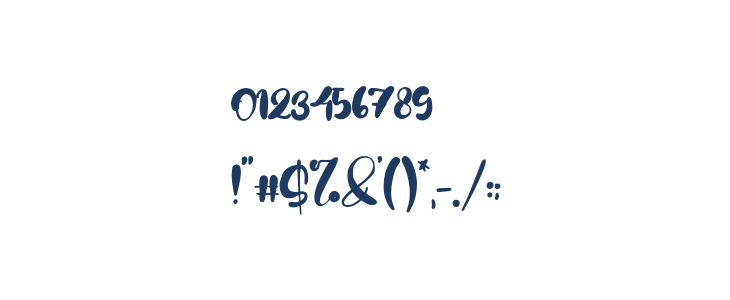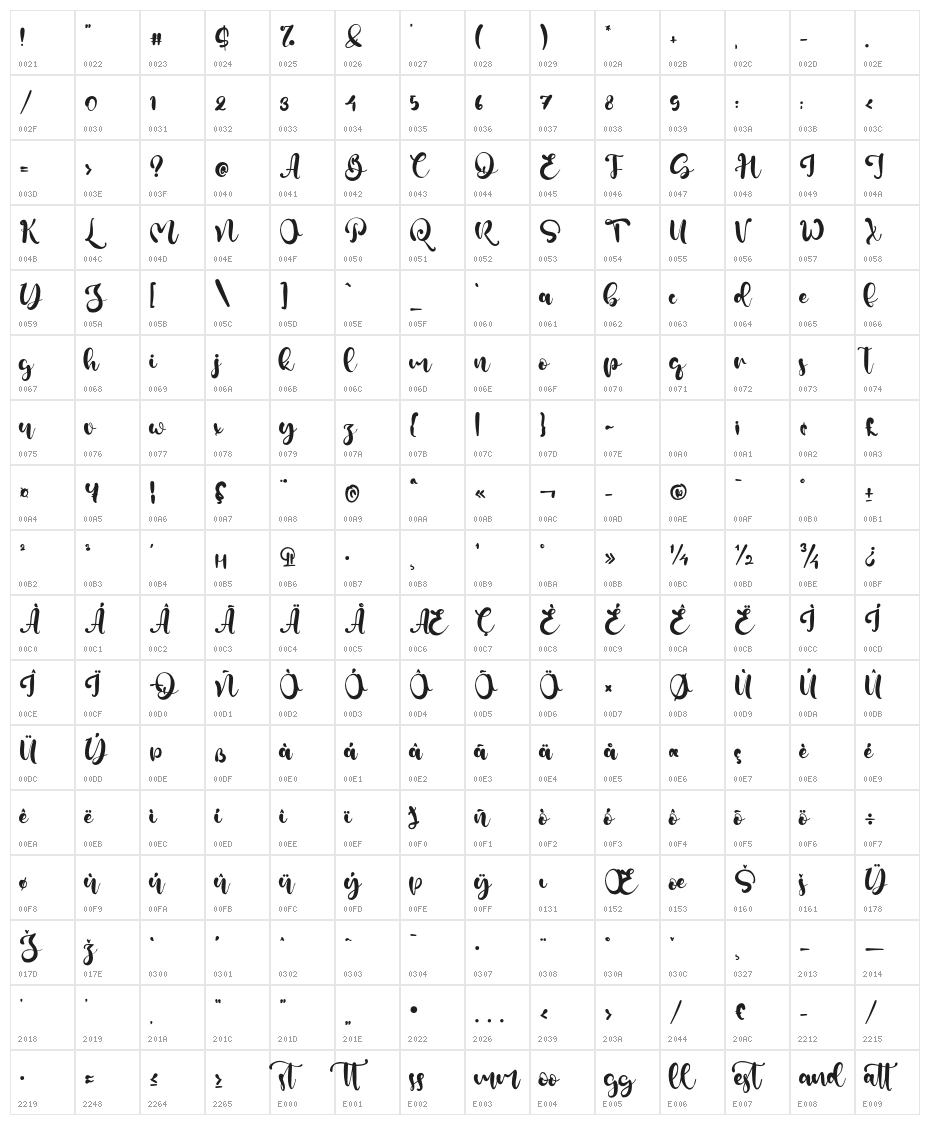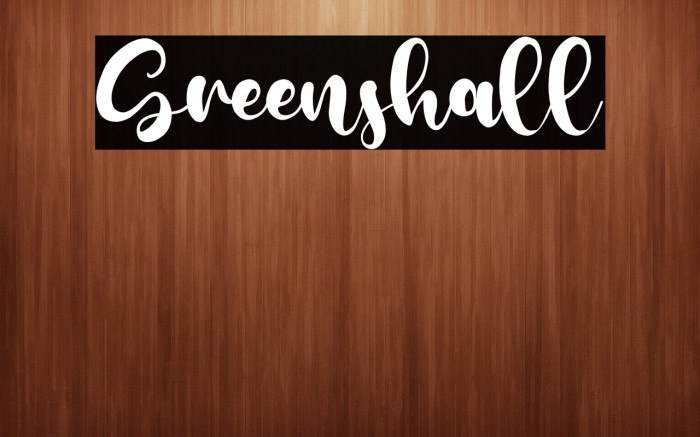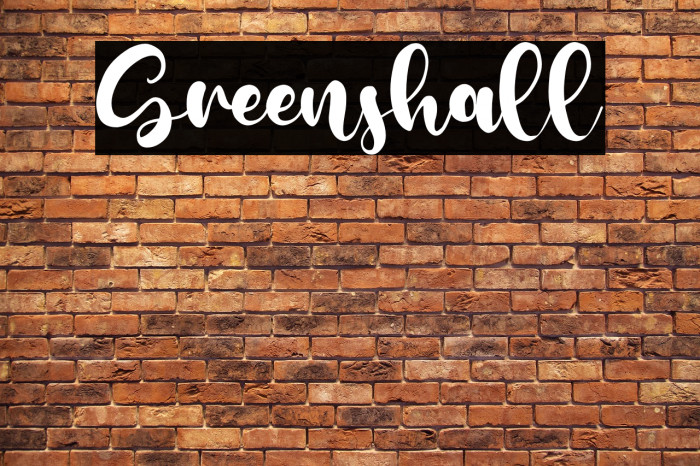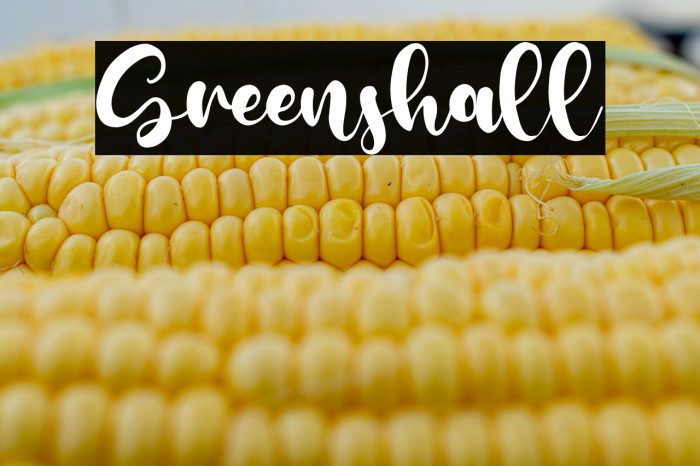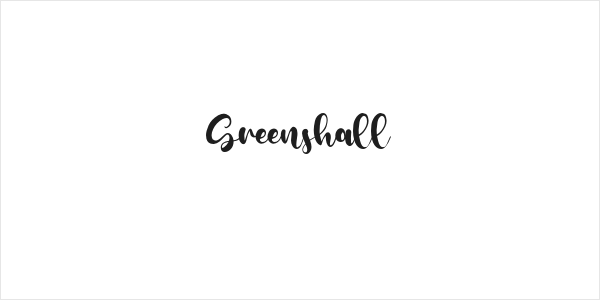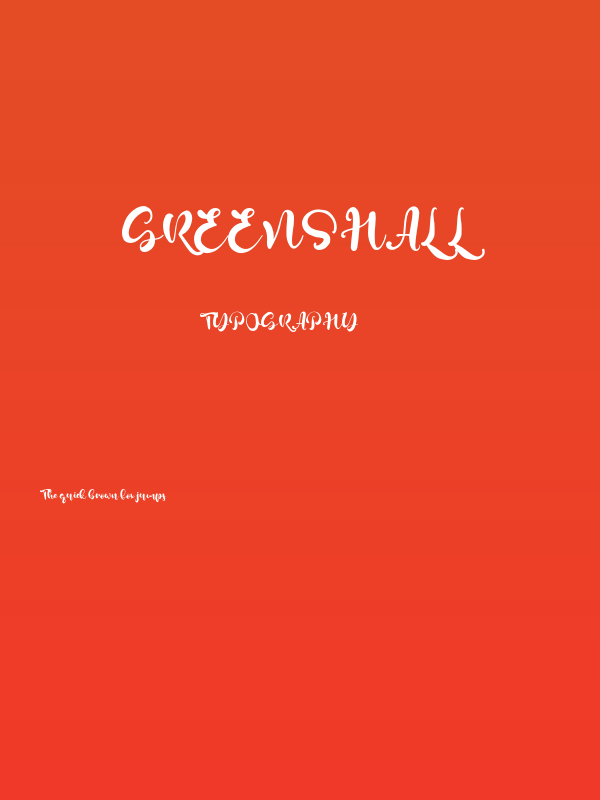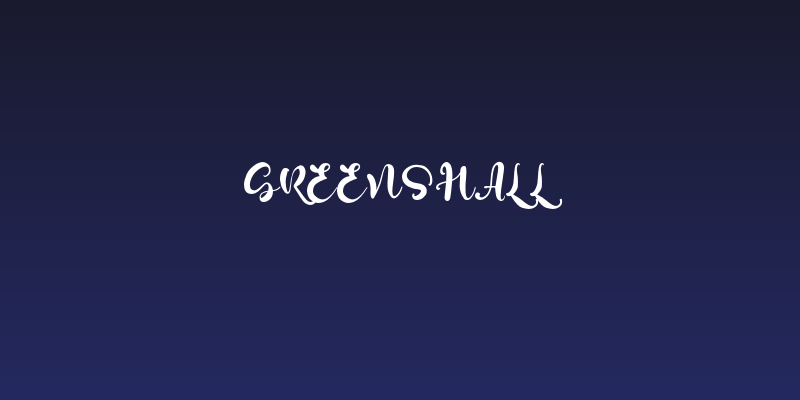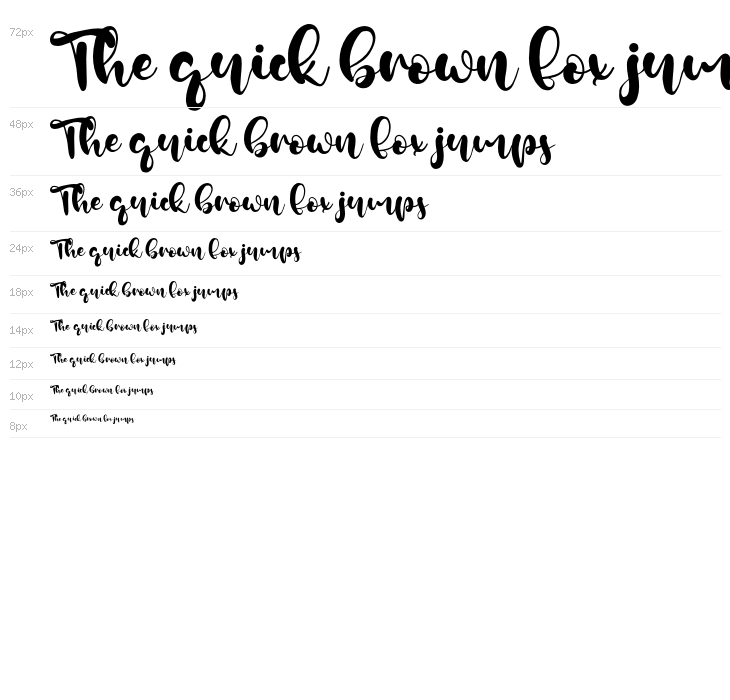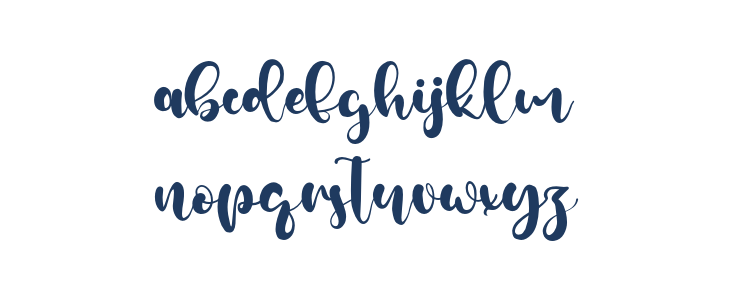
Greenshall Font
Greenshall Description
This font exudes a lively and elegant script style, characterized by its flowing, cursive letterforms. Each character is crafted with a sense of movement, featuring smooth curves and loops that create a sense of continuity and grace. The uppercase letters are bold and prominent, while the lowercase letters maintain a consistent flow, enhancing readability. The numerals and special characters are designed to complement the overall aesthetic, maintaining the same fluidity and style. This font is perfect for projects that require a touch of sophistication and charm.